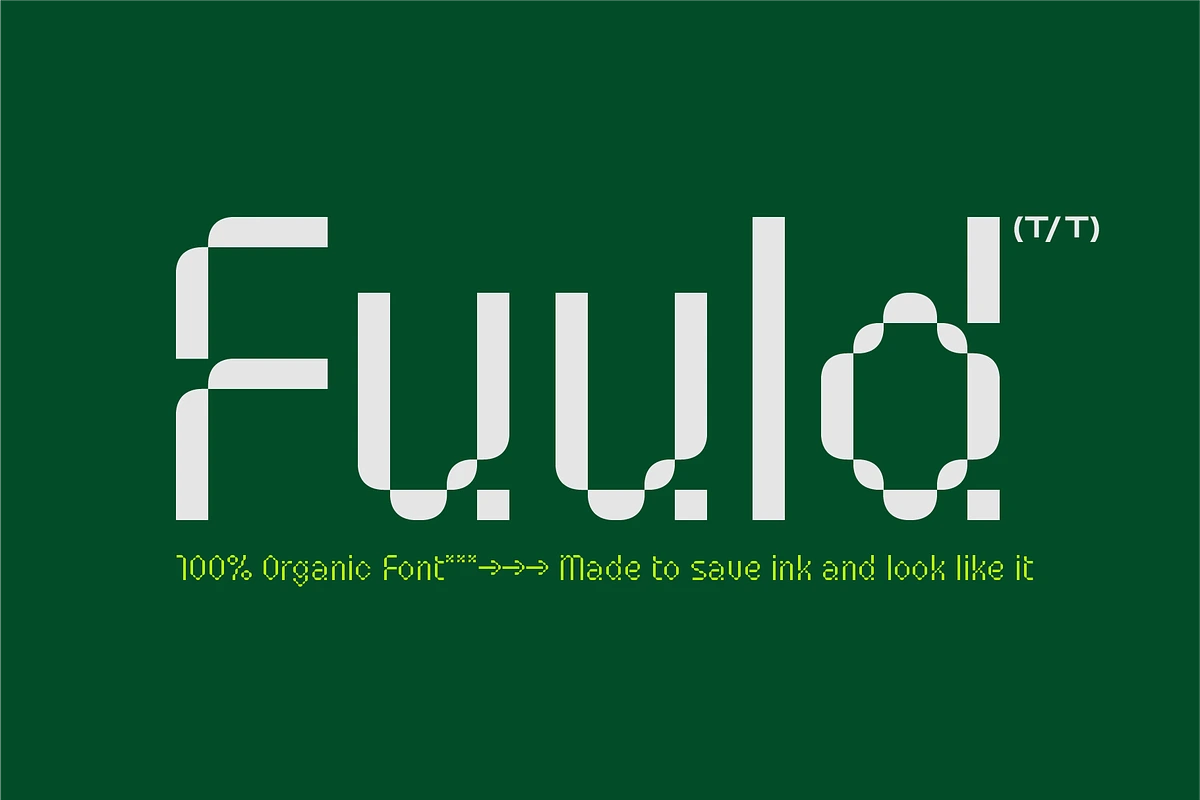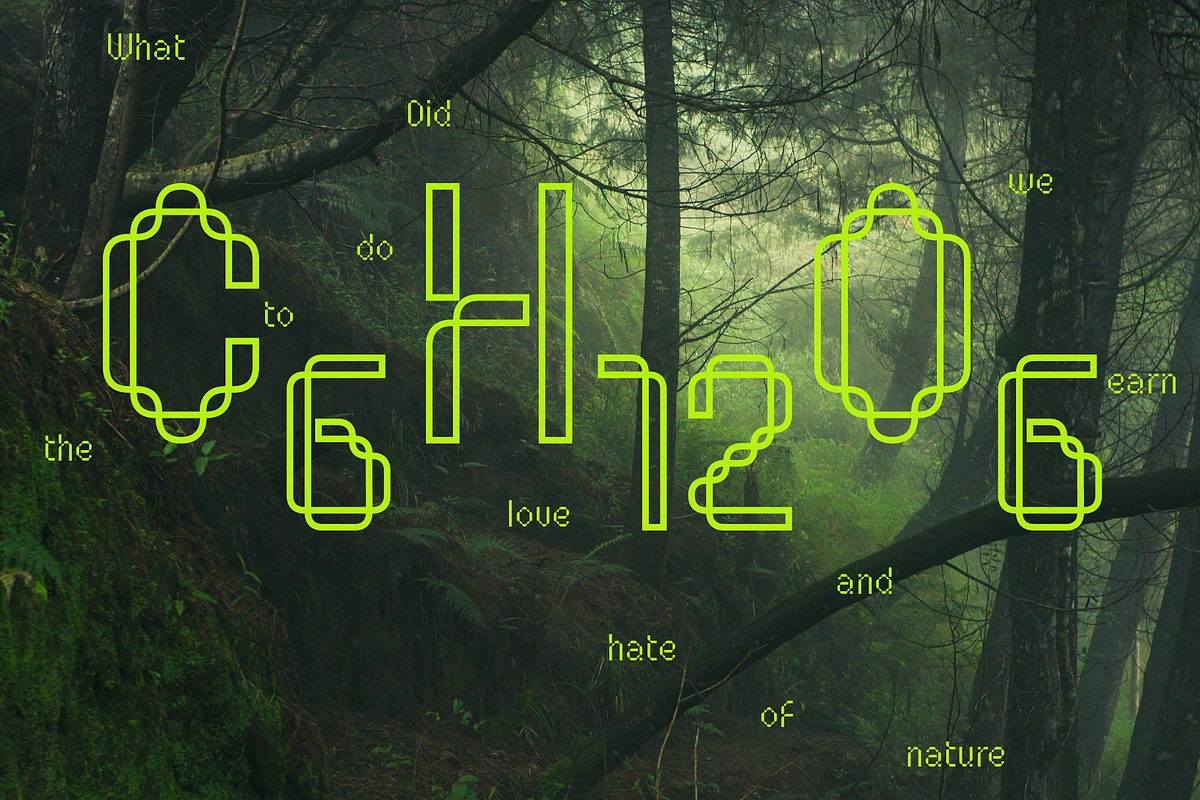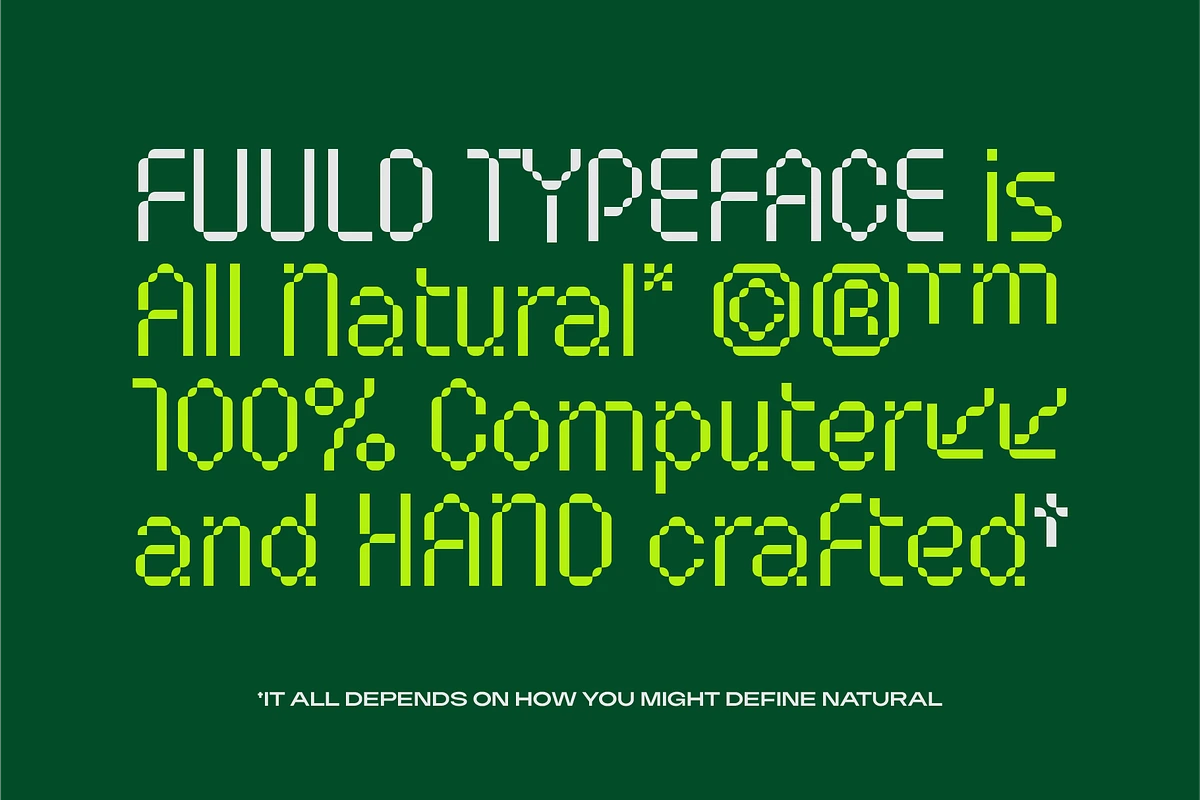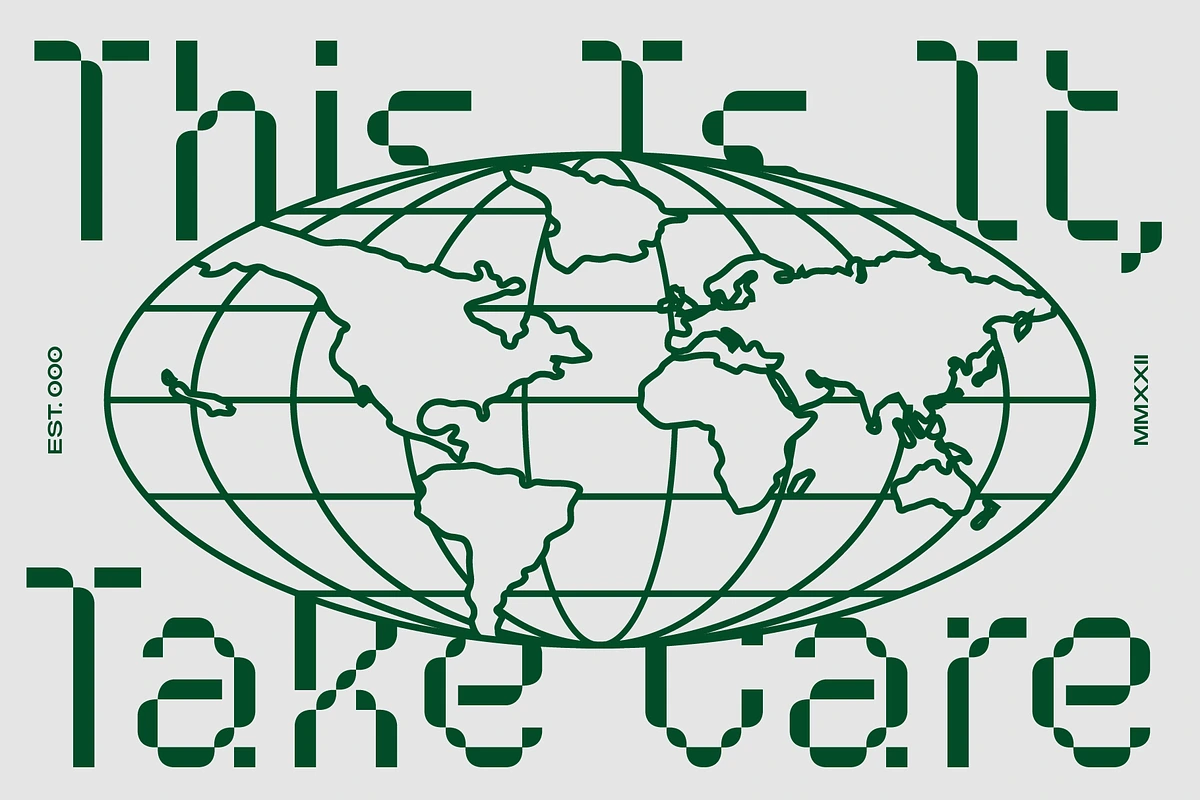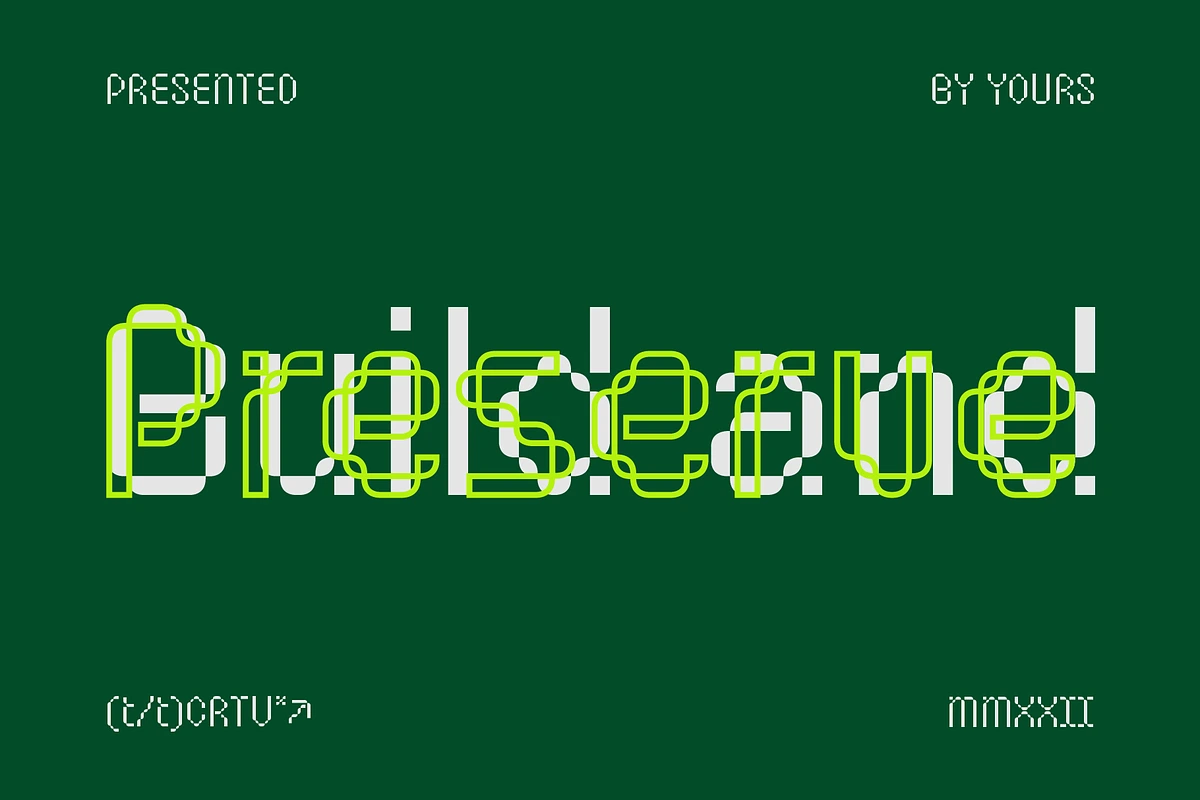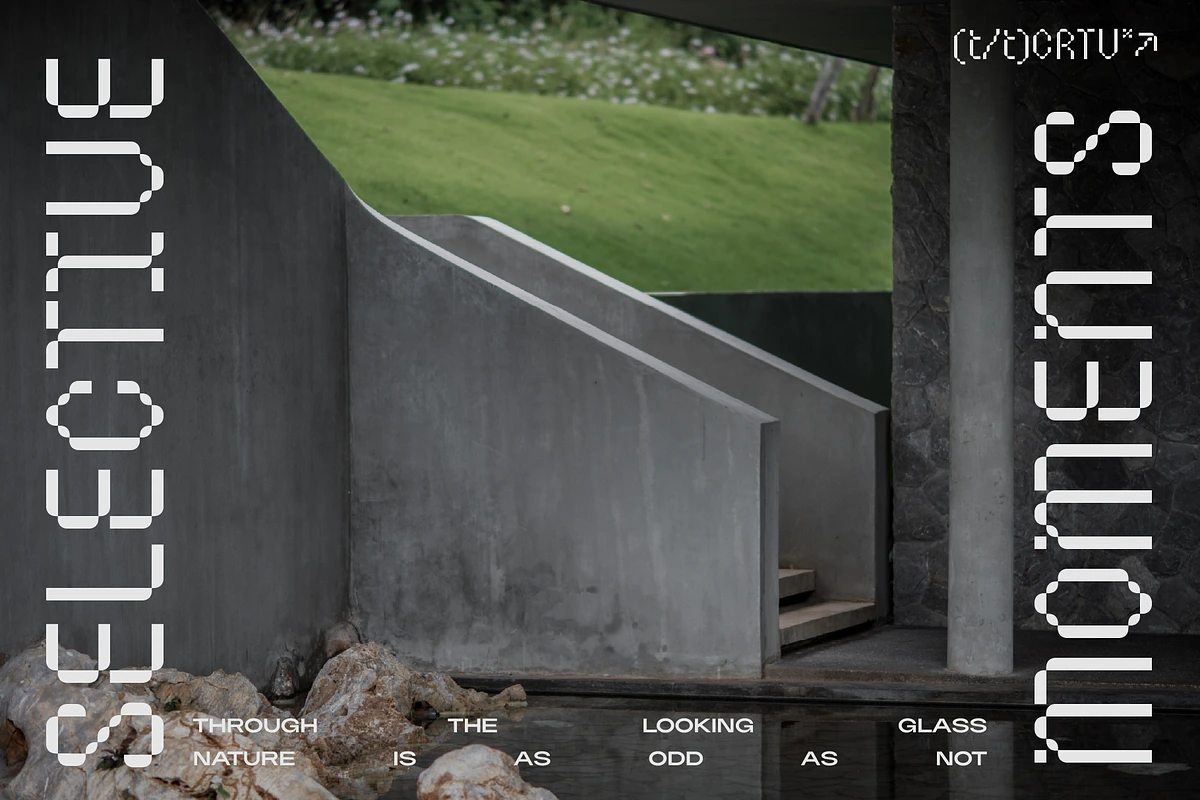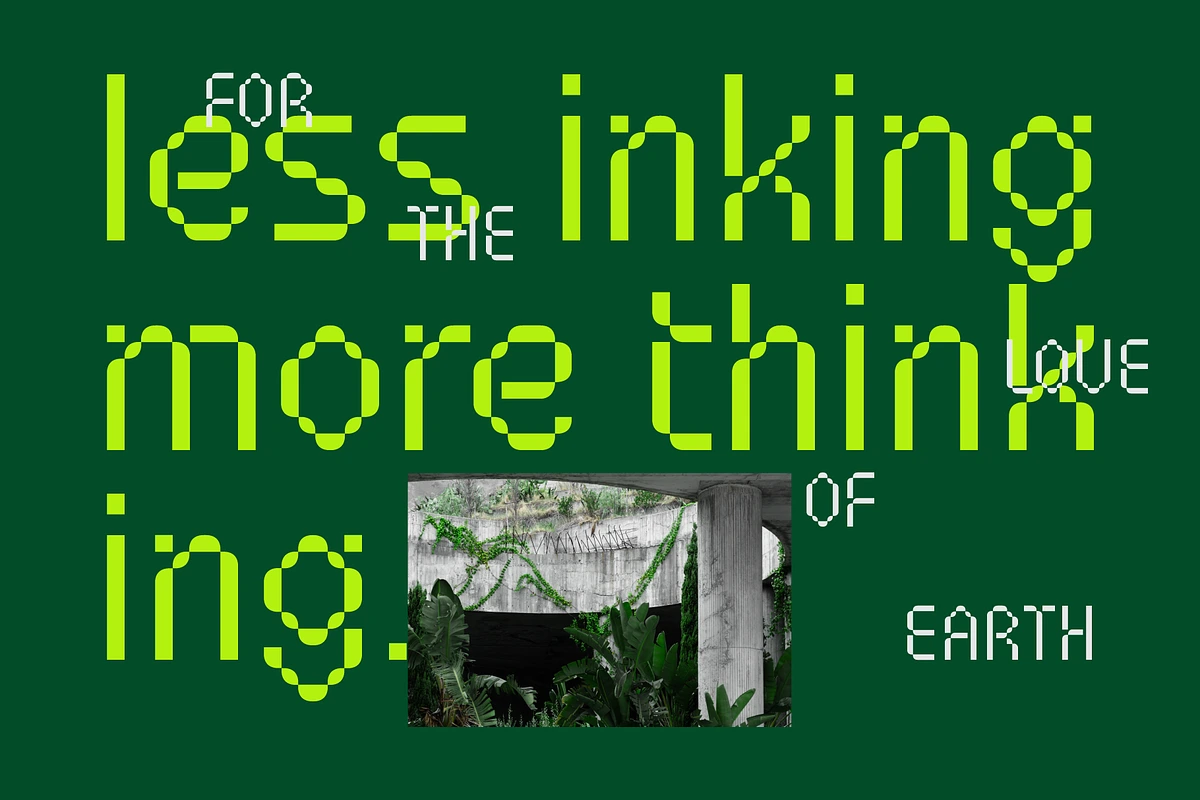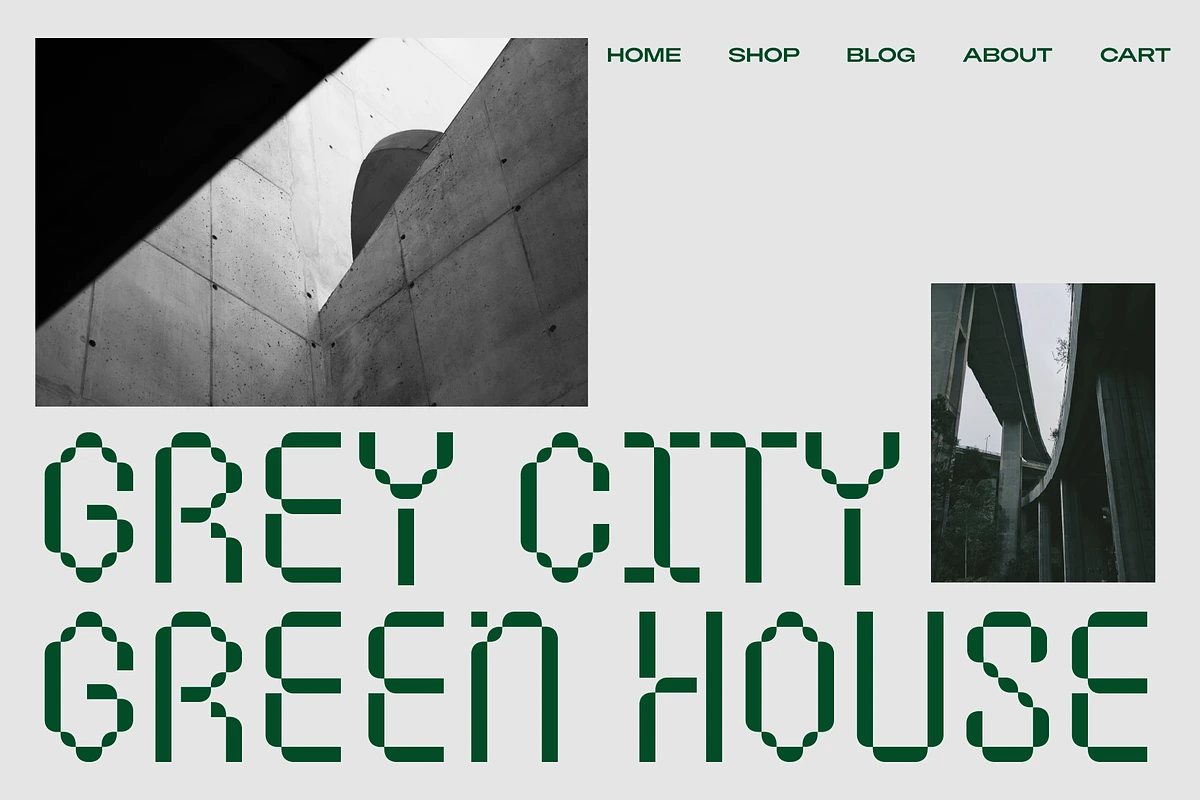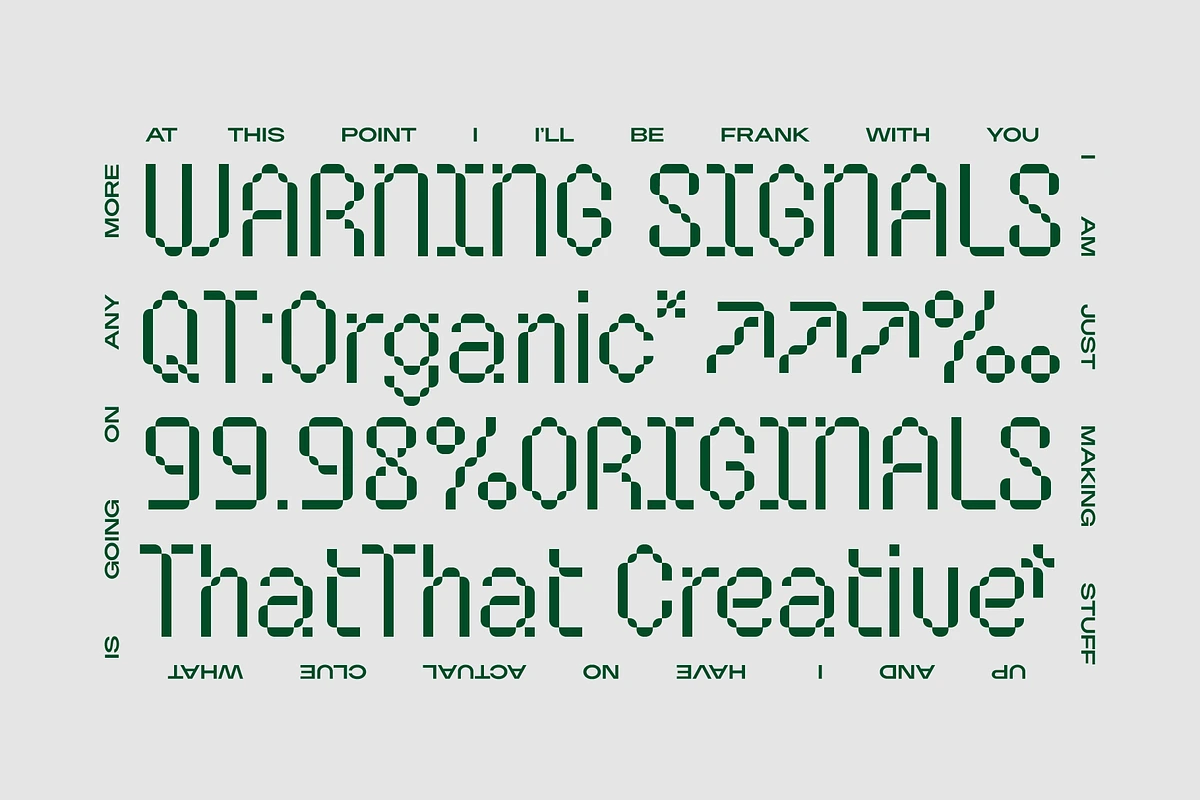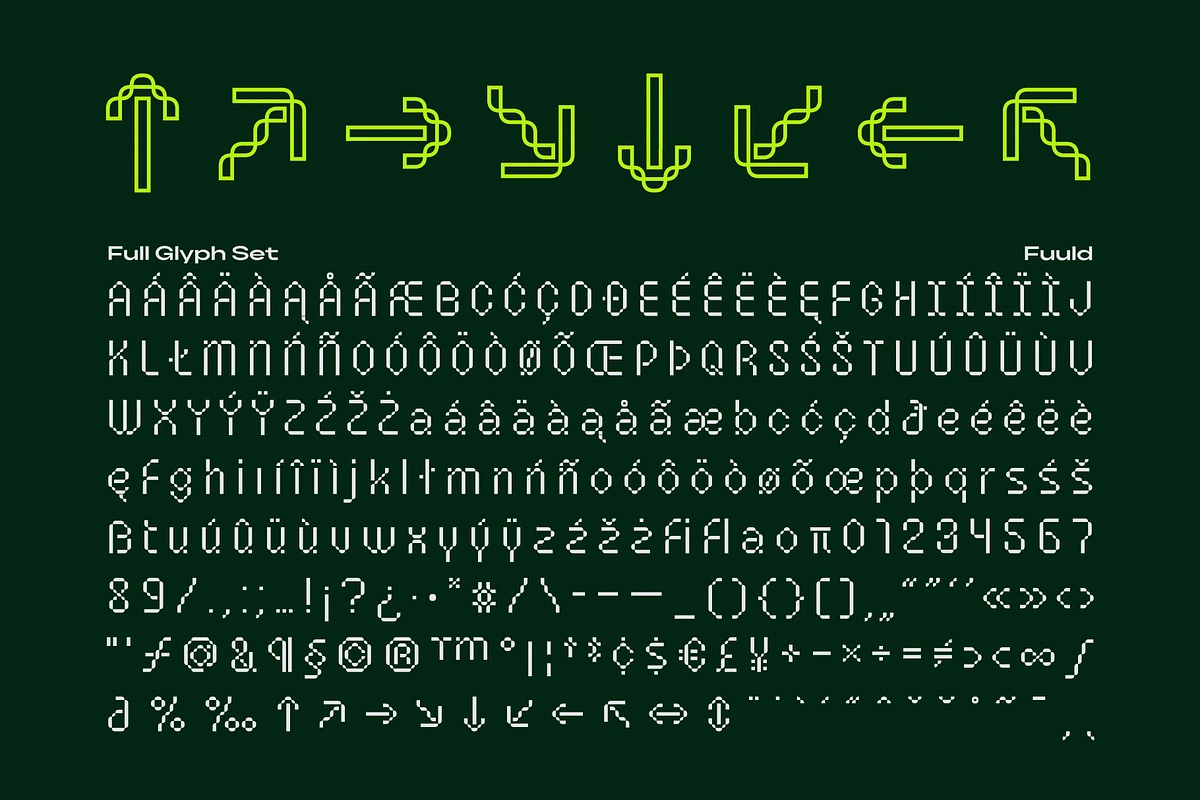
Fuuld - Pixel Tech Display Font
Fuuld-Regular
Fuuld builds every letter from broken, dashed segments with rounded joints where strokes reconnect, landing somewhere between a digital clock display and a hand-cut stencil. The gaps aren't decorative — the font genuinely lays down less ink per letter than a solid-stroke face of the same weight, so the concept holds up in actual print.
Run it filled for the intended broken-line look, or strip the fill and add a stroke for a second, more skeletal version of the same face. Multilingual support and a full symbol set keep it usable well past a one-off headline.
- uppercase & lowercase;
- multilingual support;
- symbols, punctuation & arrows;